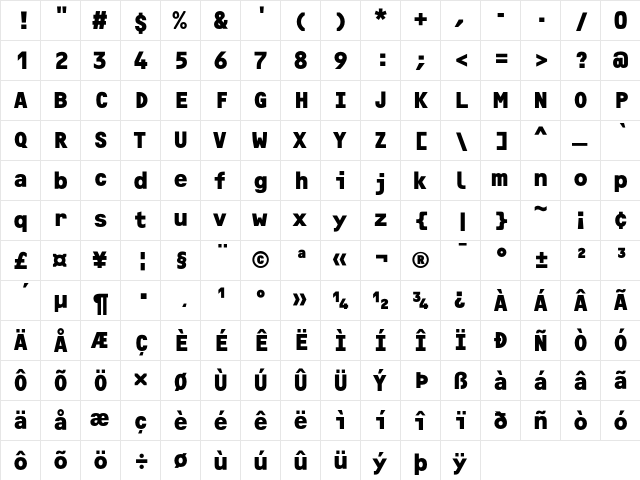
OCRF Bold
Design Context for OCRF Typeface
OCRF is a composed and adaptable typeface that performs quietly and consistently across a wide range of design contexts. Its bold stroke weight gives it real presence on the page.